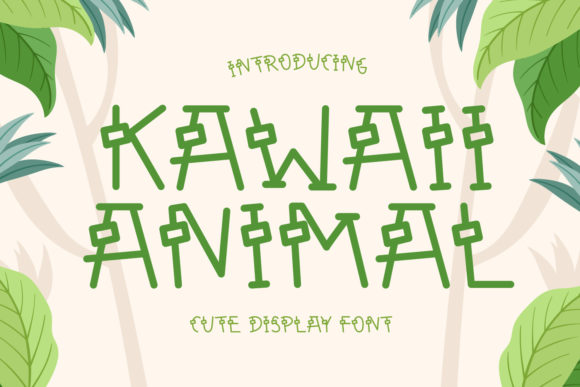
Unleash your imagination with Kawaii Animal, the enchanting font that captivates with its playful charm!
This adorable display font exudes a heartwarming and welcoming vibe that invites you on a whimsical adventure. Its unique style adds a touch of whimsy to any design, making it perfect for everything from website headers to social media posts.
Kawaii Animal's friendly, approachable nature makes it easy to read and comprehend, enhancing user experience and engagement. Its versatility knows no bounds, lending itself effortlessly to a vast array of creative endeavors.
Indulge in the charm of Kawaii Animal today and let its playful spirit bring life to your design endeavors. Let its enchanting strokes inspire your creativity and captivate your audience with its undeniable charm.